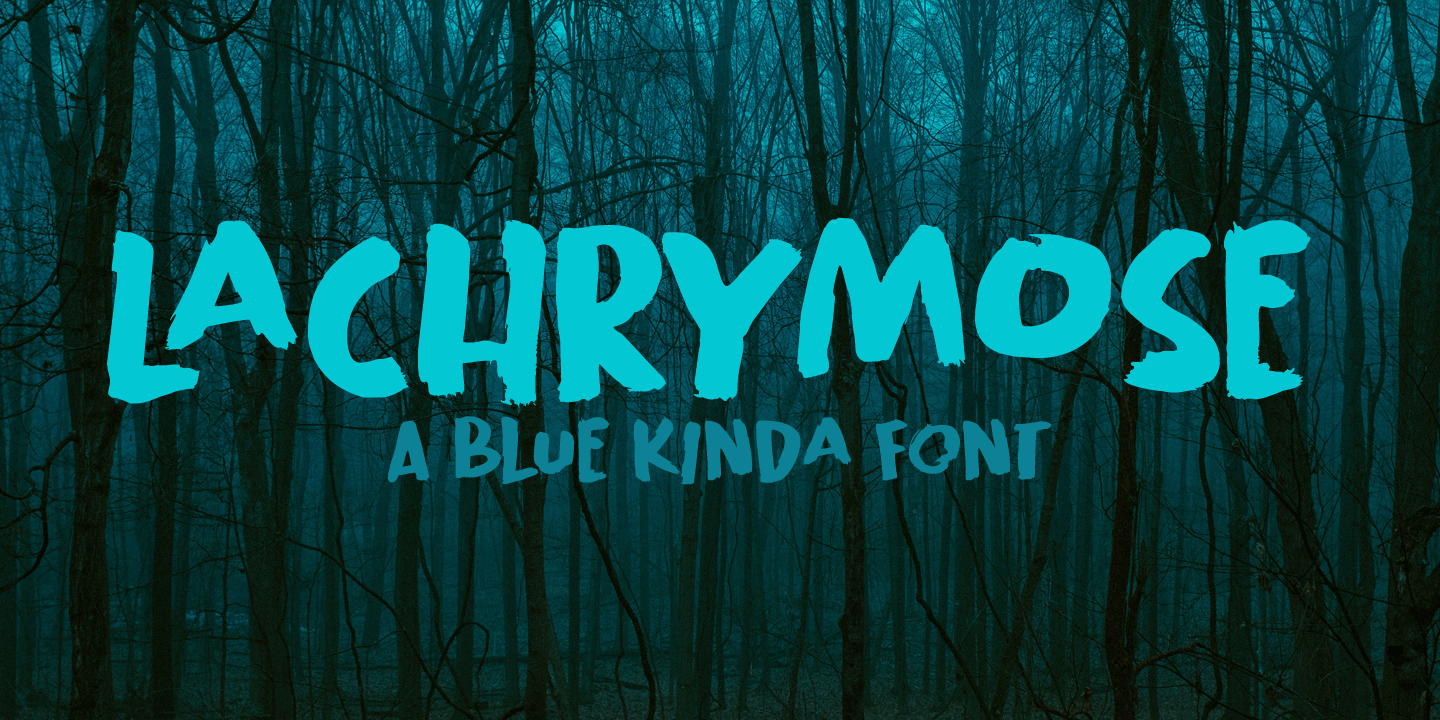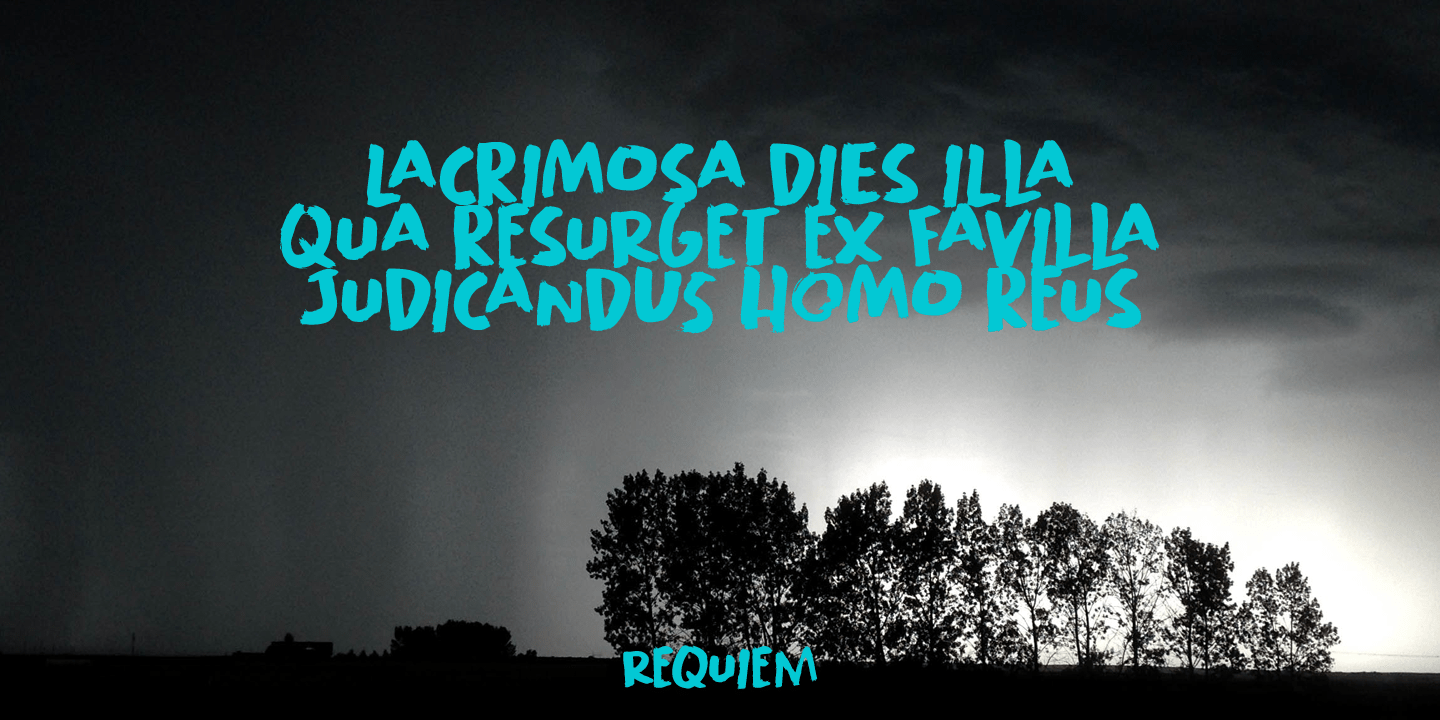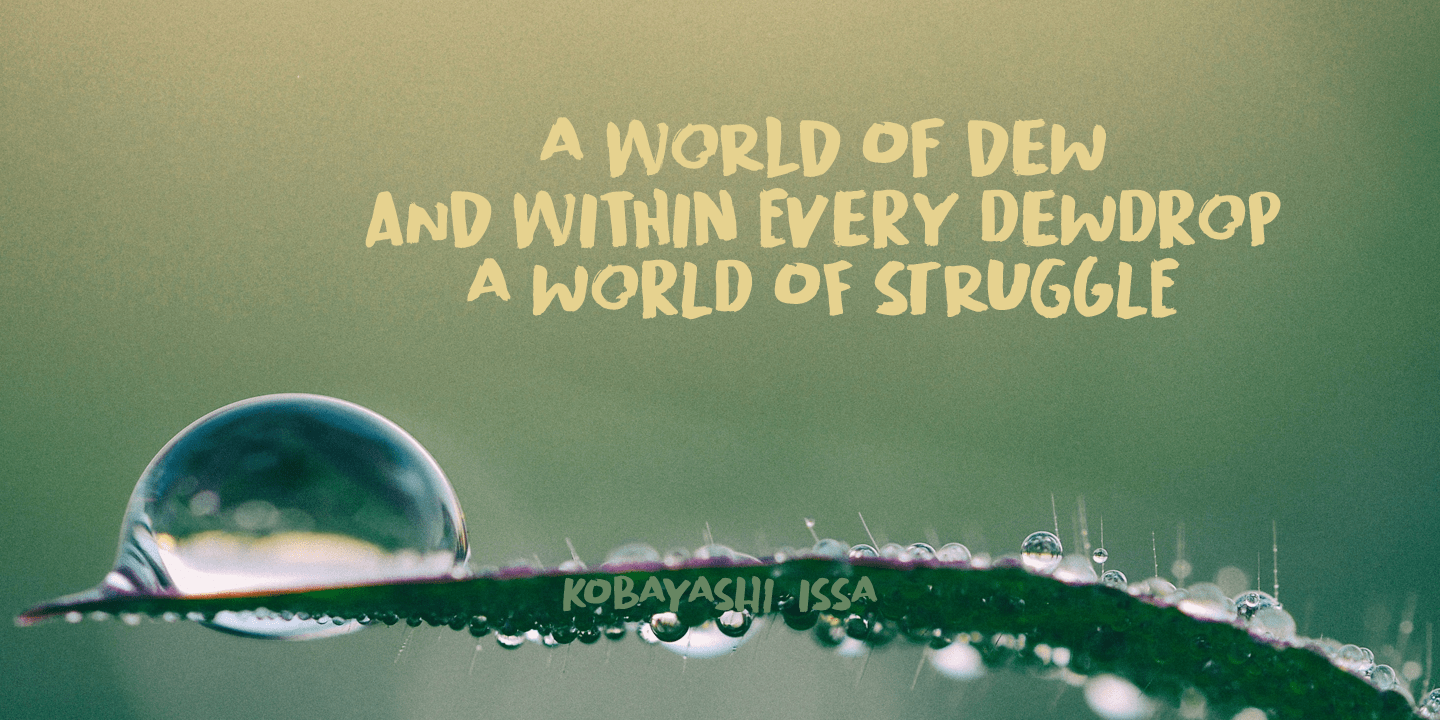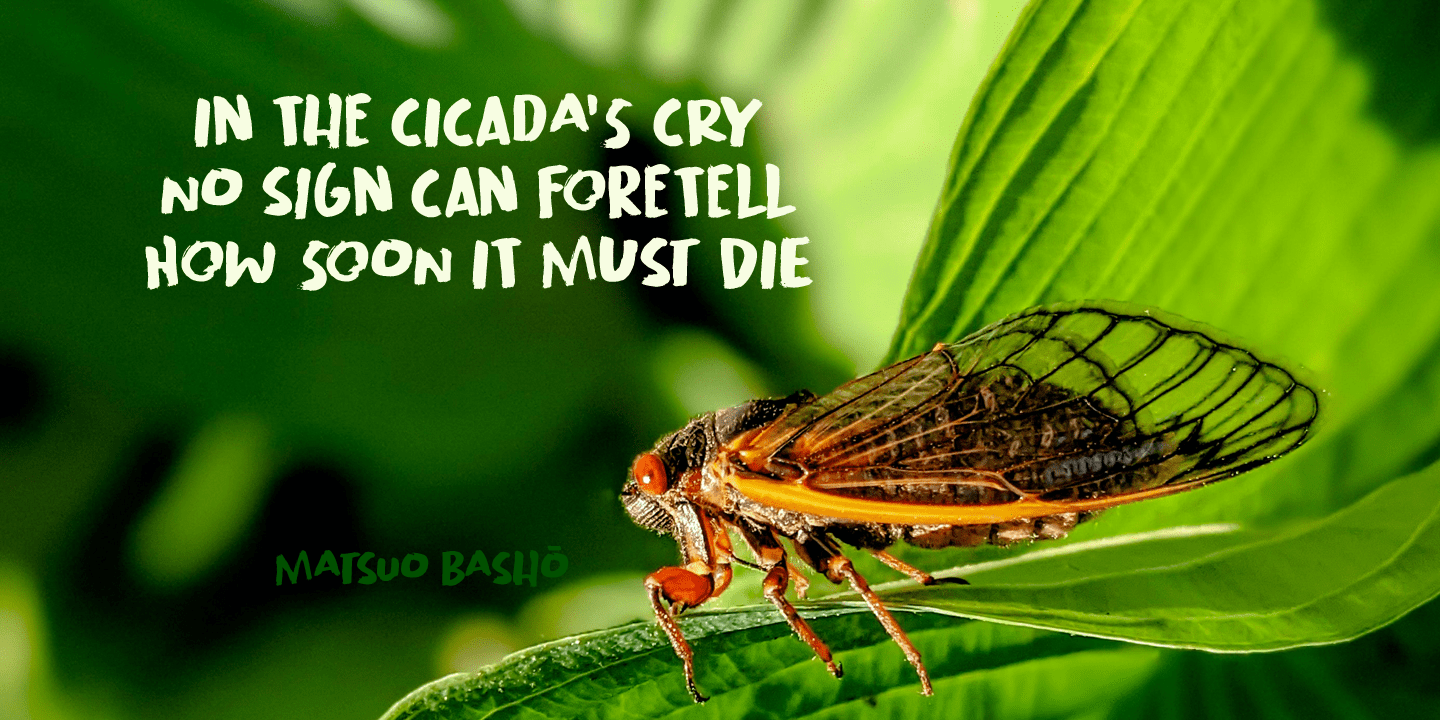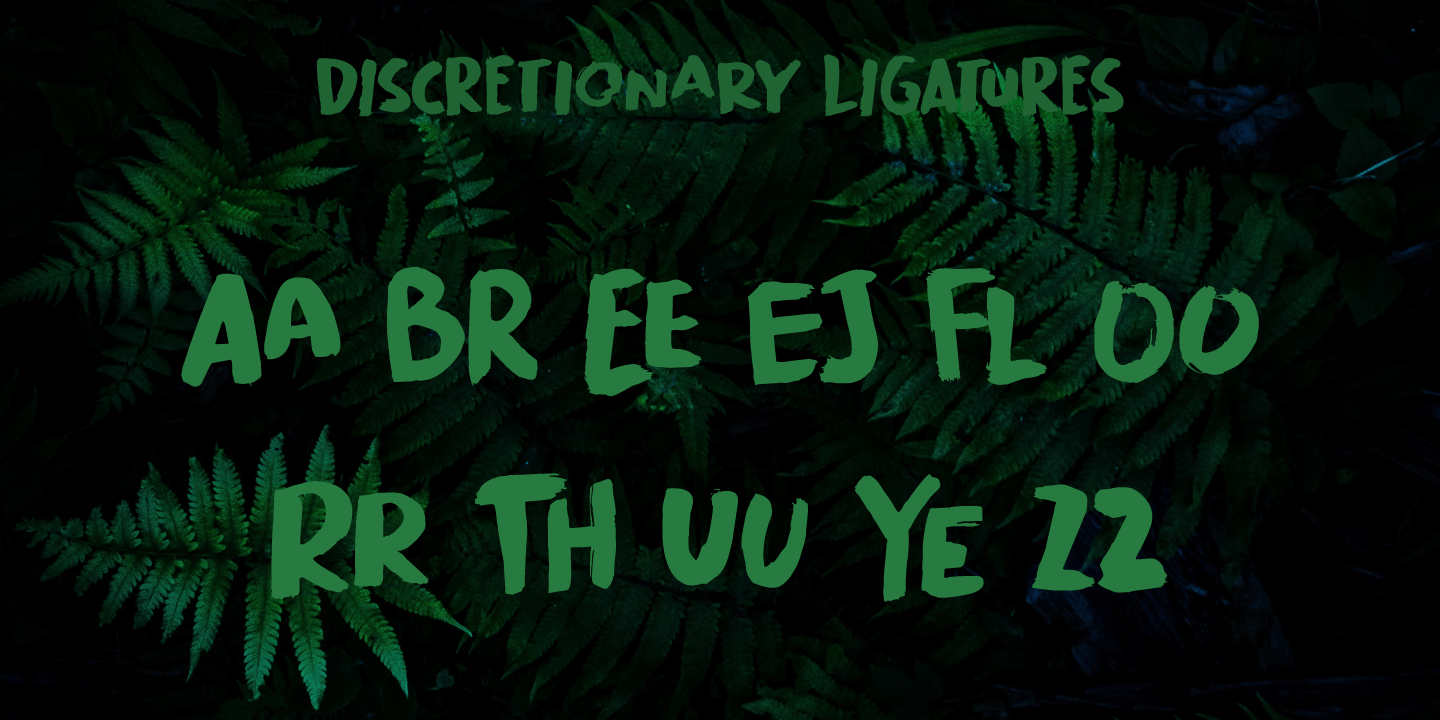
Lachrymose
Lachrymose is a word that stems from 'lacrima', the Latin word for tear. It means 'tearful', or 'given to weeping.'
Now, before y'all think I am depressed or so - I am not. I just like the sound of this word and the way it is written. All I needed to do was to build a font for it!
Lachrymose is a handmade brush font. I used my fantastic Chinese ink and a cheap brush to create the glyphs. Lachrymose is a display font, so use it for anything display-ish.